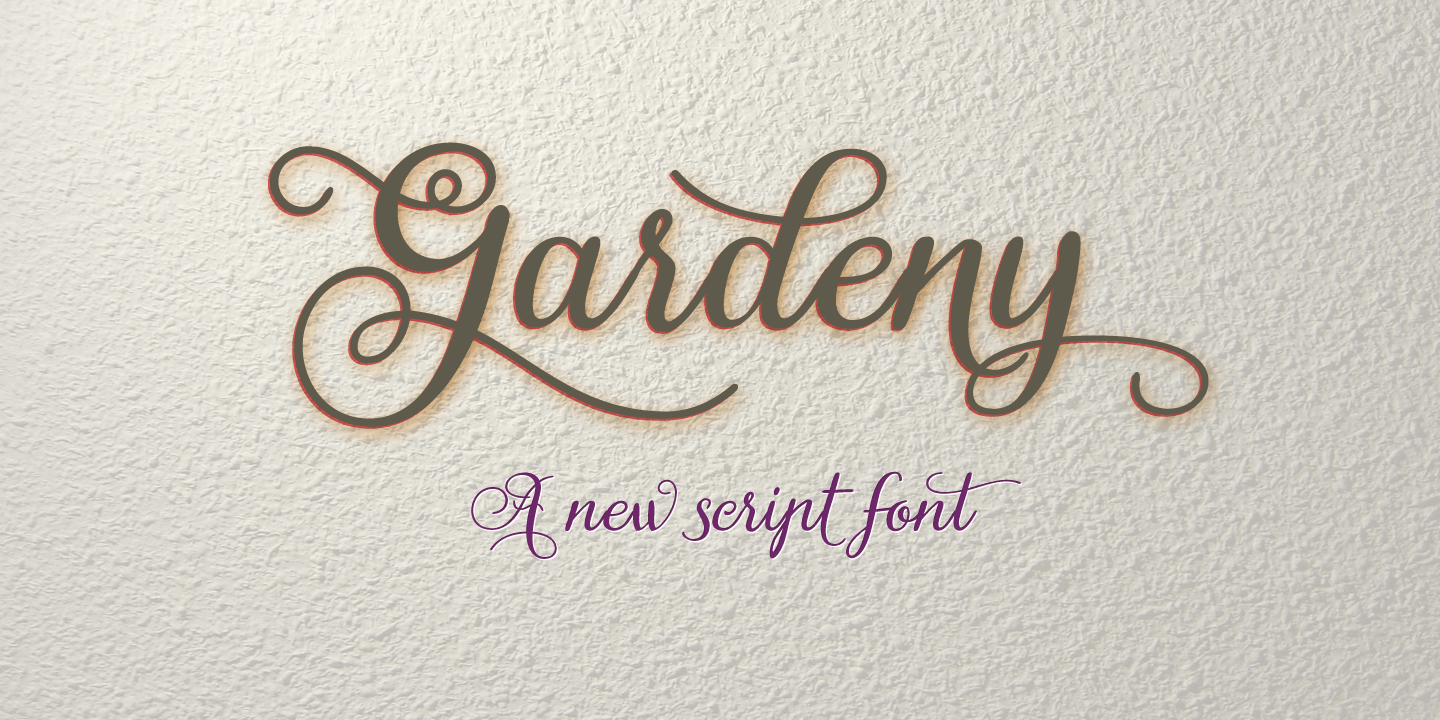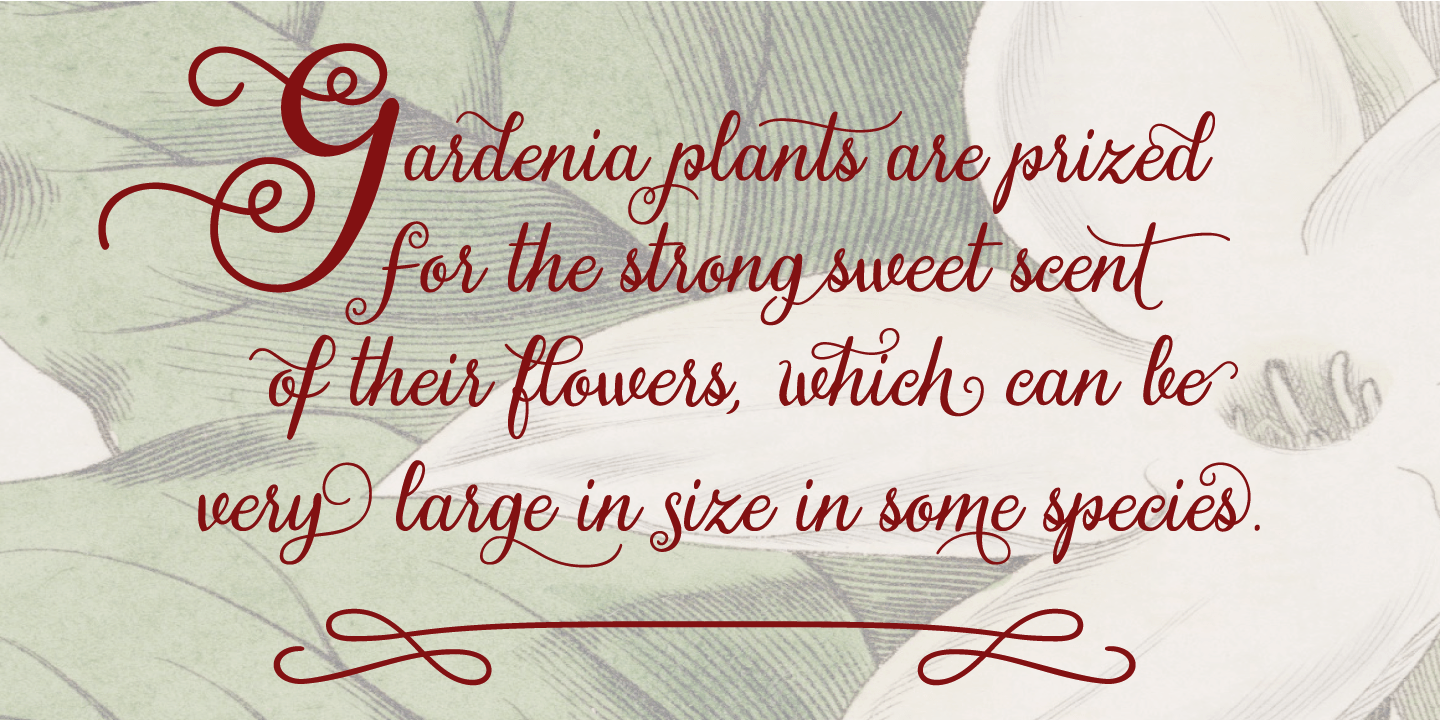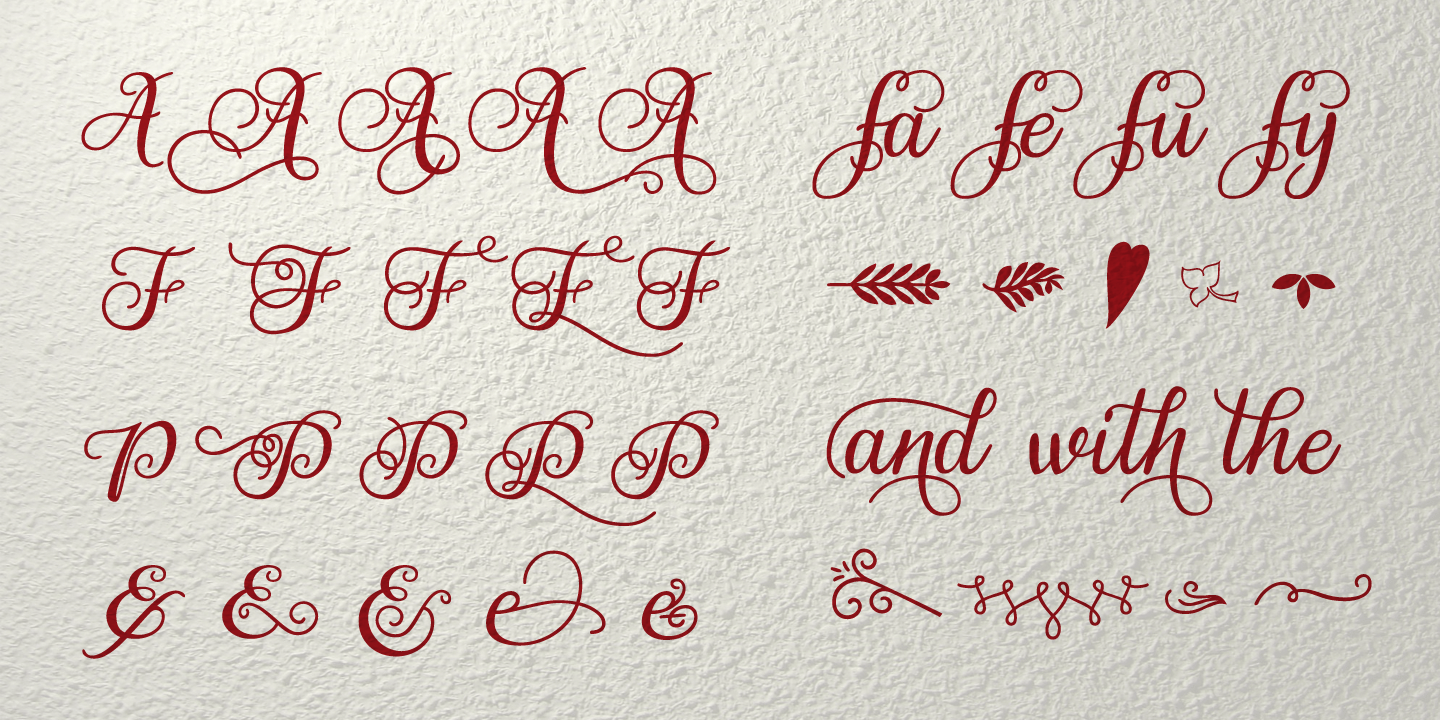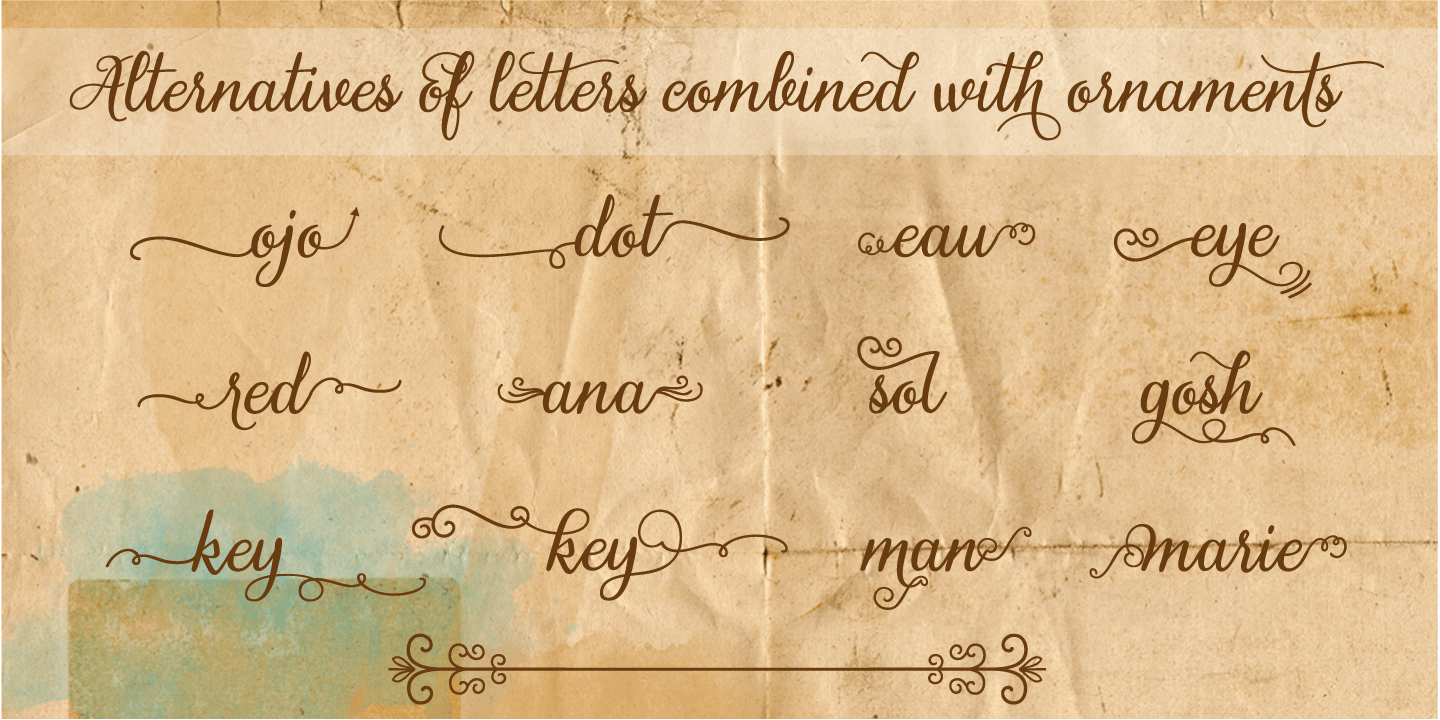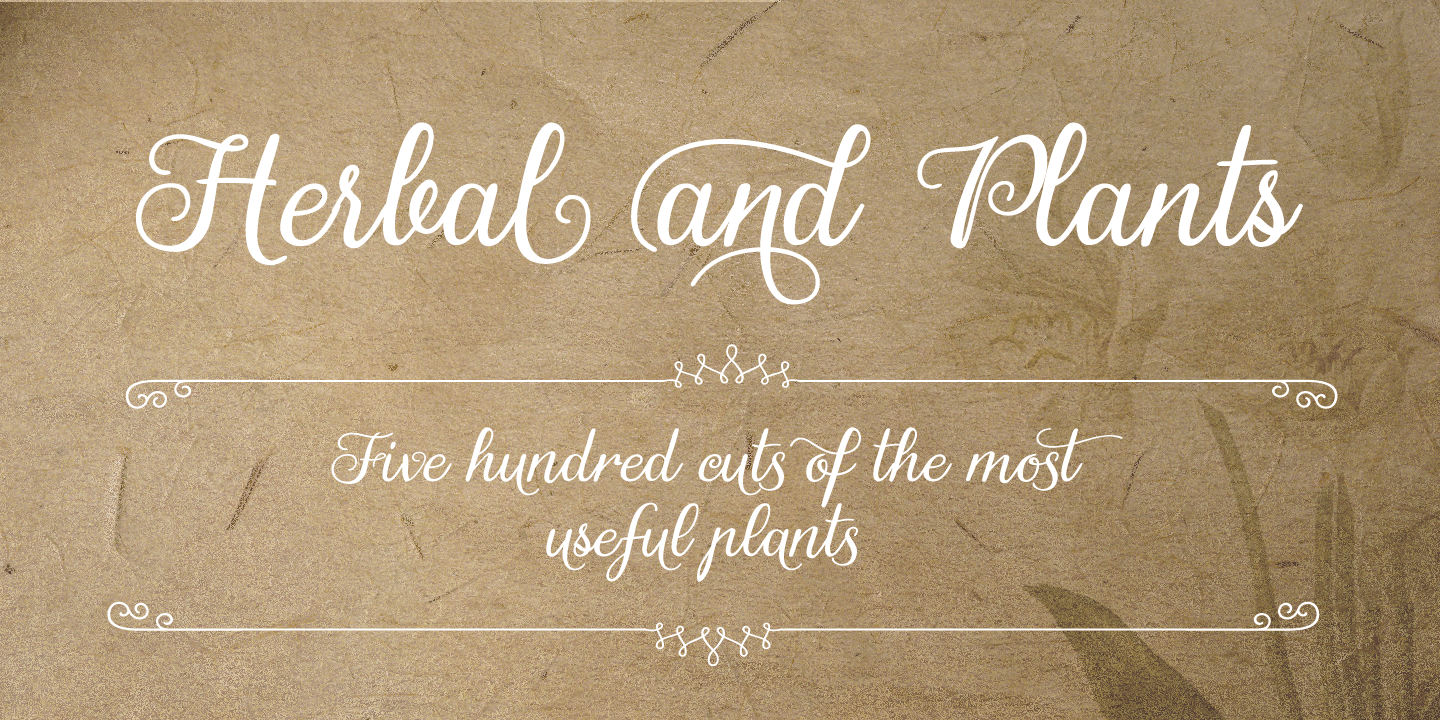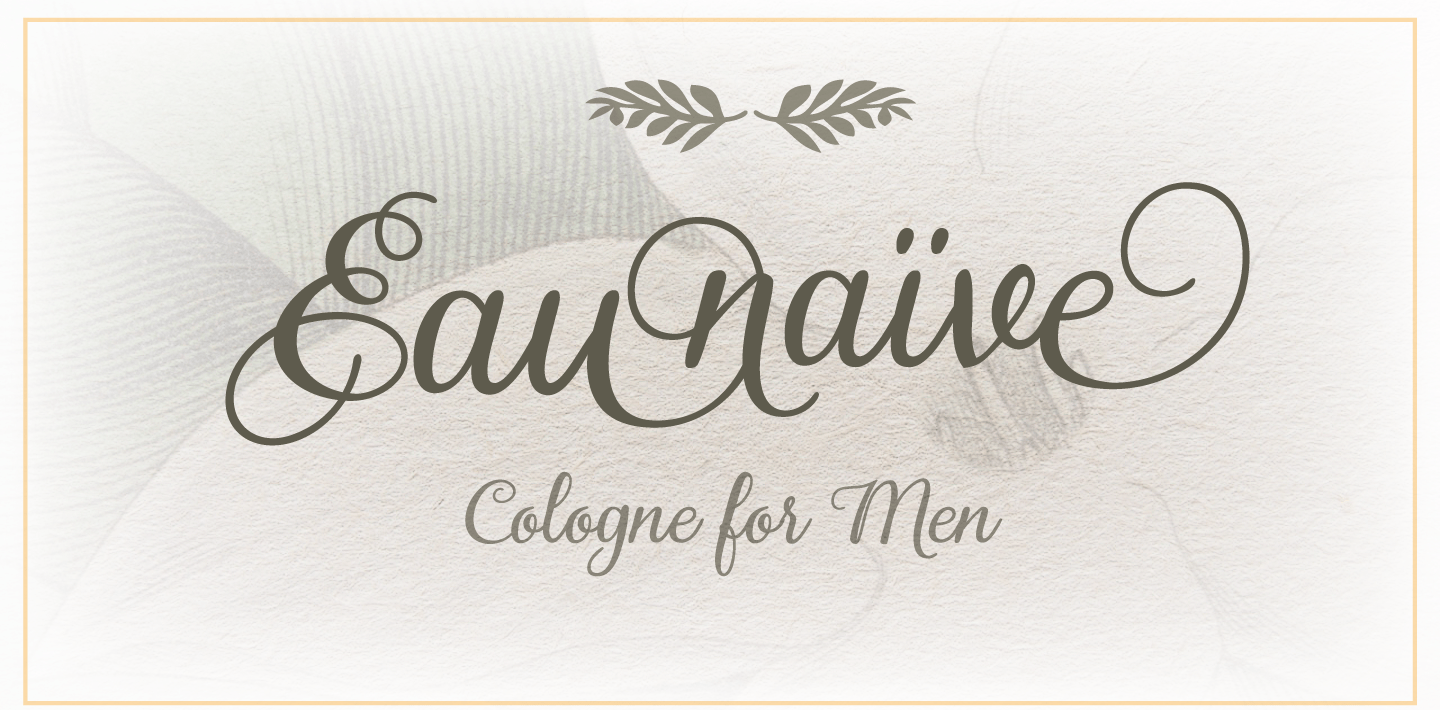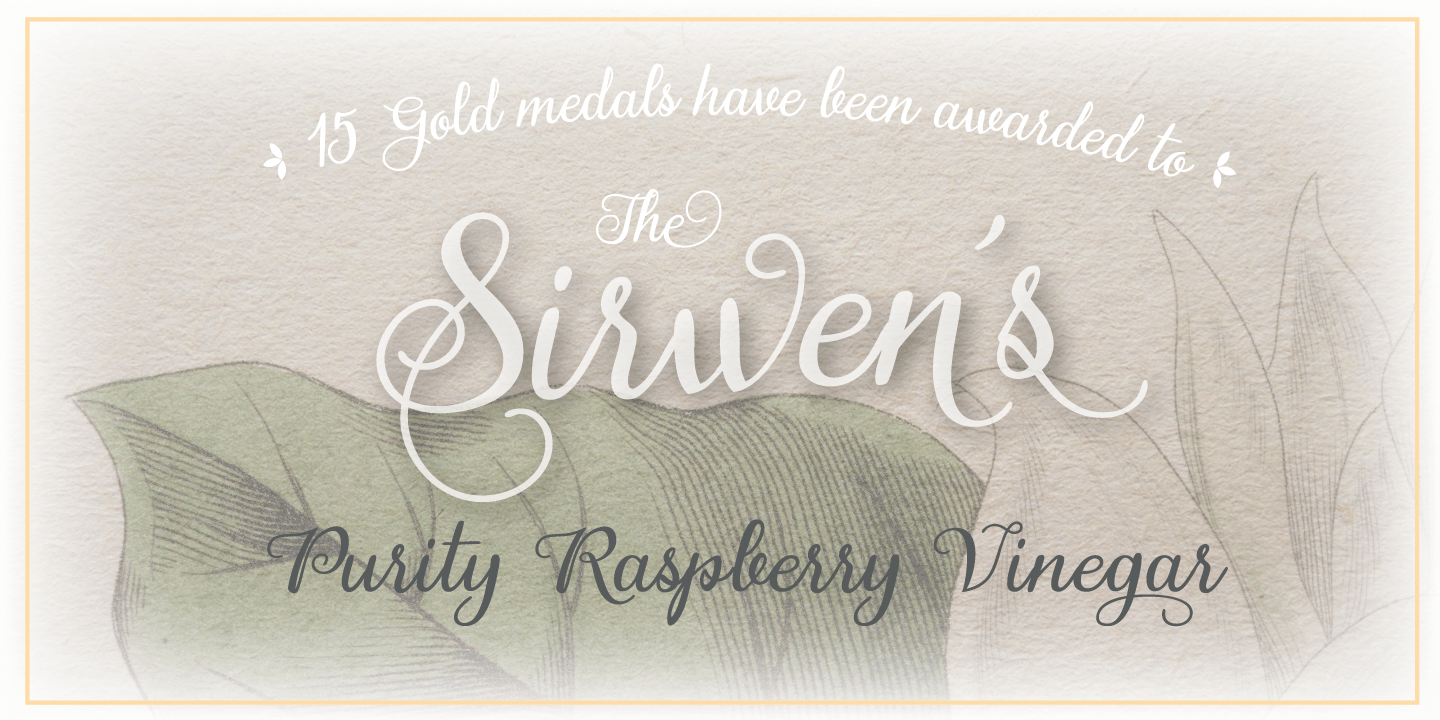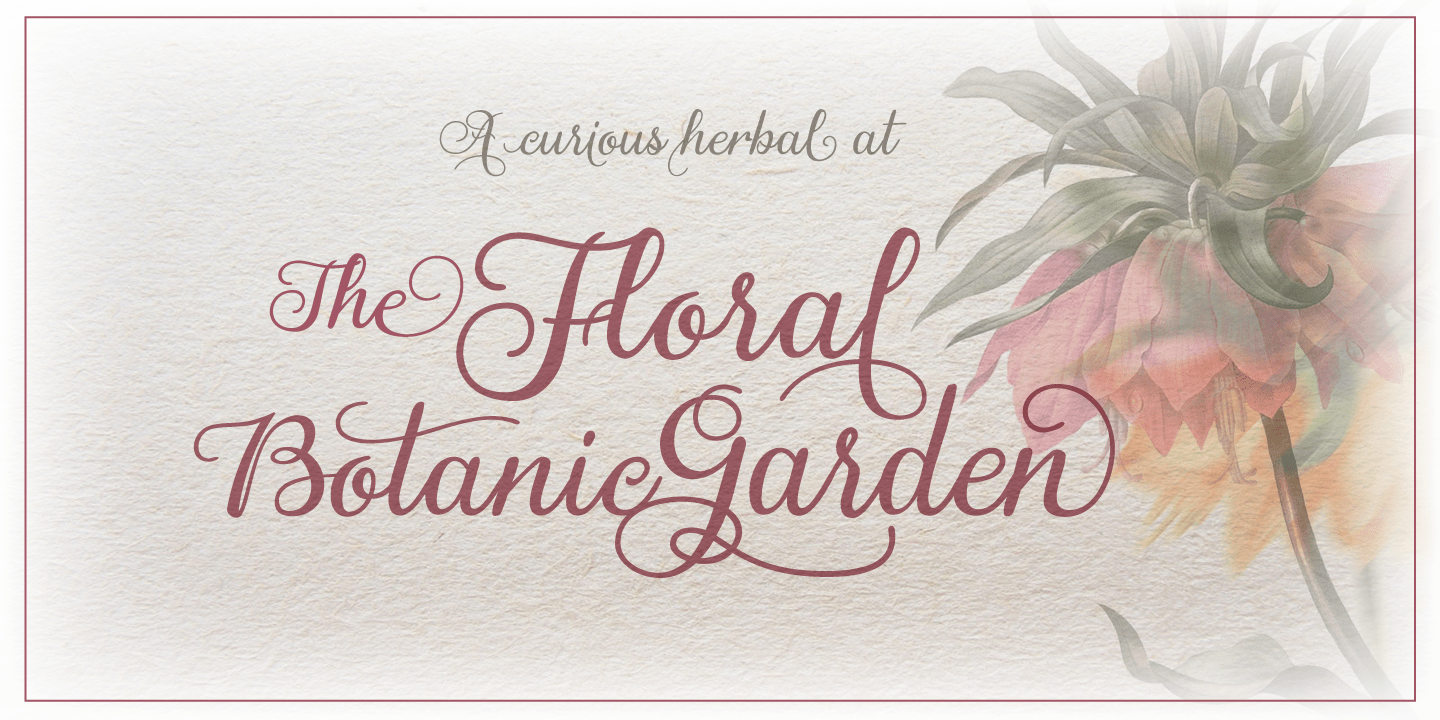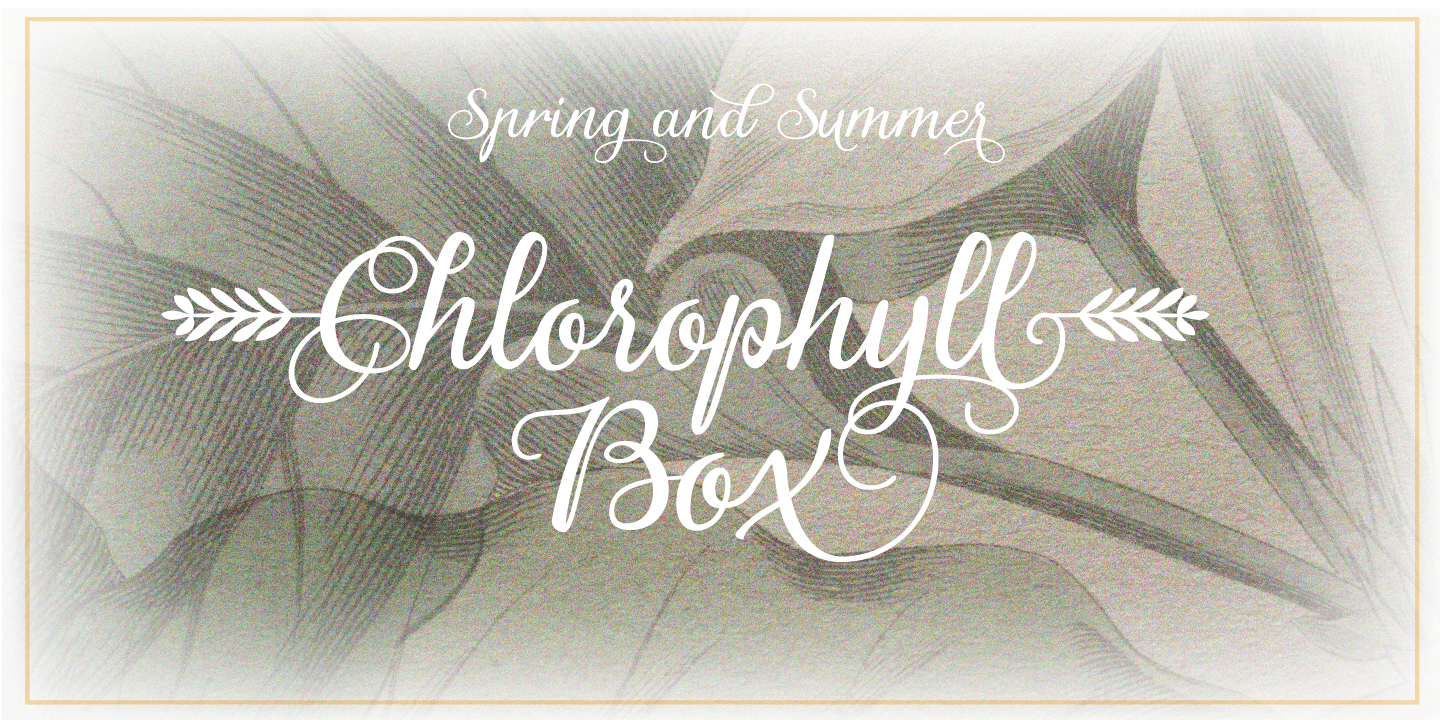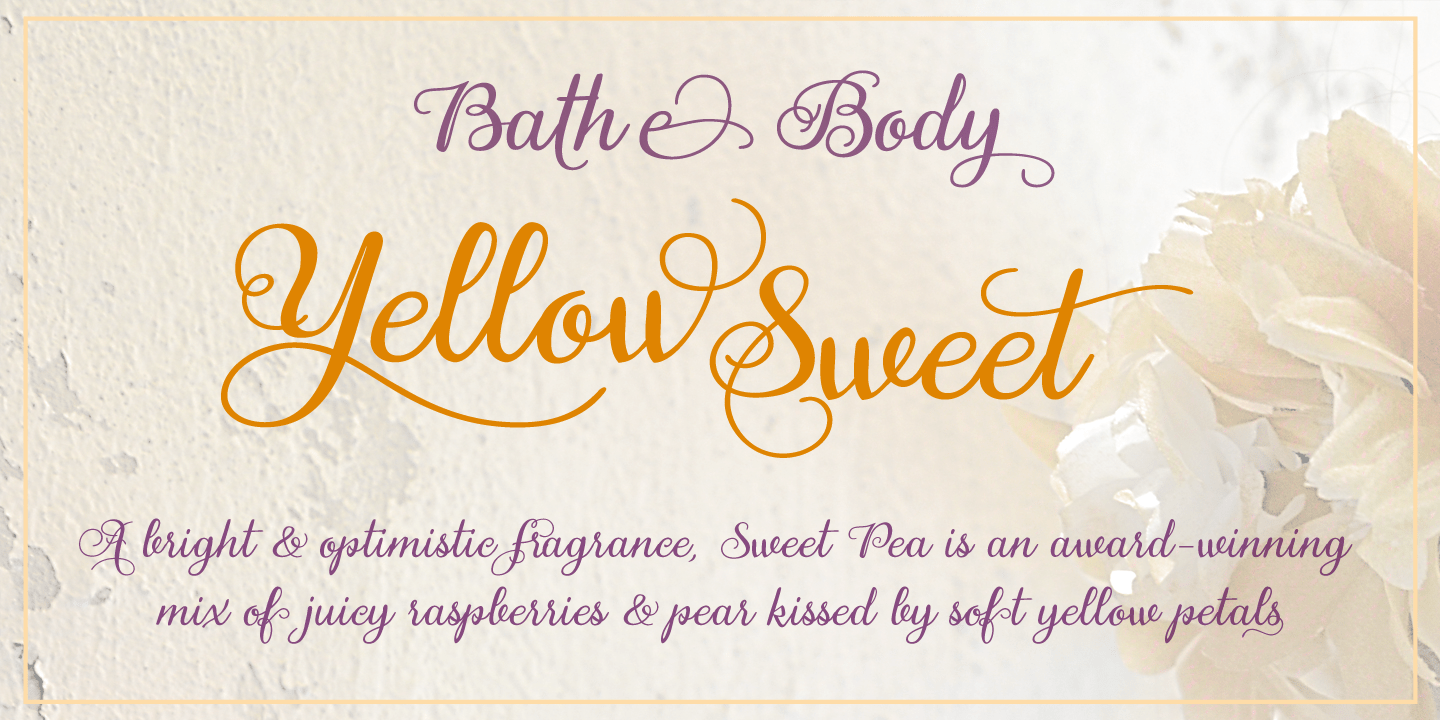
Gardeny
Font Family by Eurotypo
Gardeny is a contemporary formal script with a handwritten feel, balancing polished elegance with a modern, personal touch. Its flowing letterforms give it a refined but approachable presence, making it a strong choice when you want script styling that feels current rather than overly traditional.
With 1 font style in the family, this design works especially well anywhere expressive lettering needs to carry the message—think branding, invitations, packaging, social graphics, and other display uses where a graceful script can add warmth and sophistication.
Created by Eurotypo, Gardeny offers a focused, single-style approach for designers who want a distinctive script voice that feels formal, handwritten, and contemporary all at once.